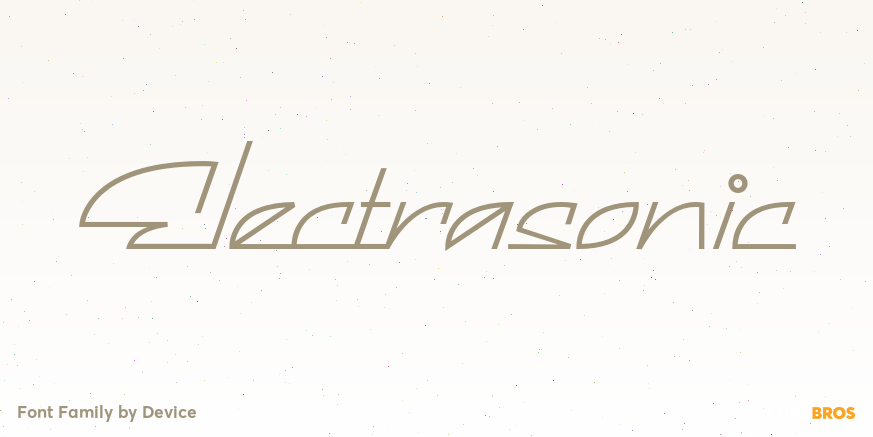
About Electrasonic
Electrasonic is a neon linking script in fine, X fine and XX fine weights that whispers slyly of louche backstreet glamour and medicinally strong day-glo cocktails. Use with a cosmopolitan to hand and Suede on the ipod.